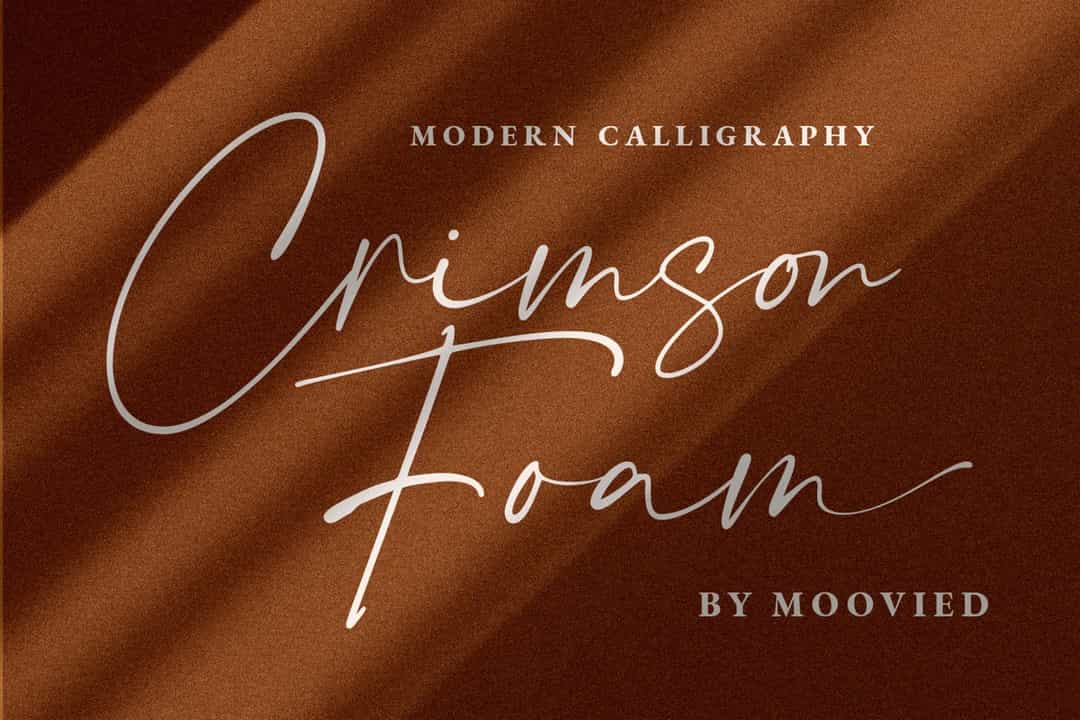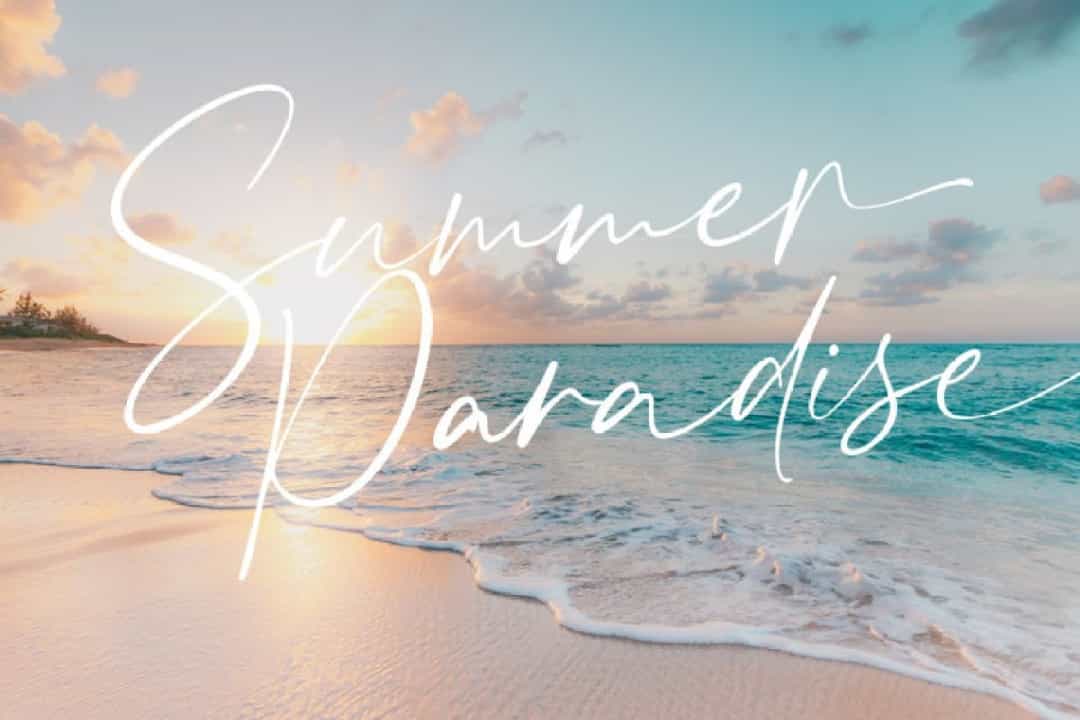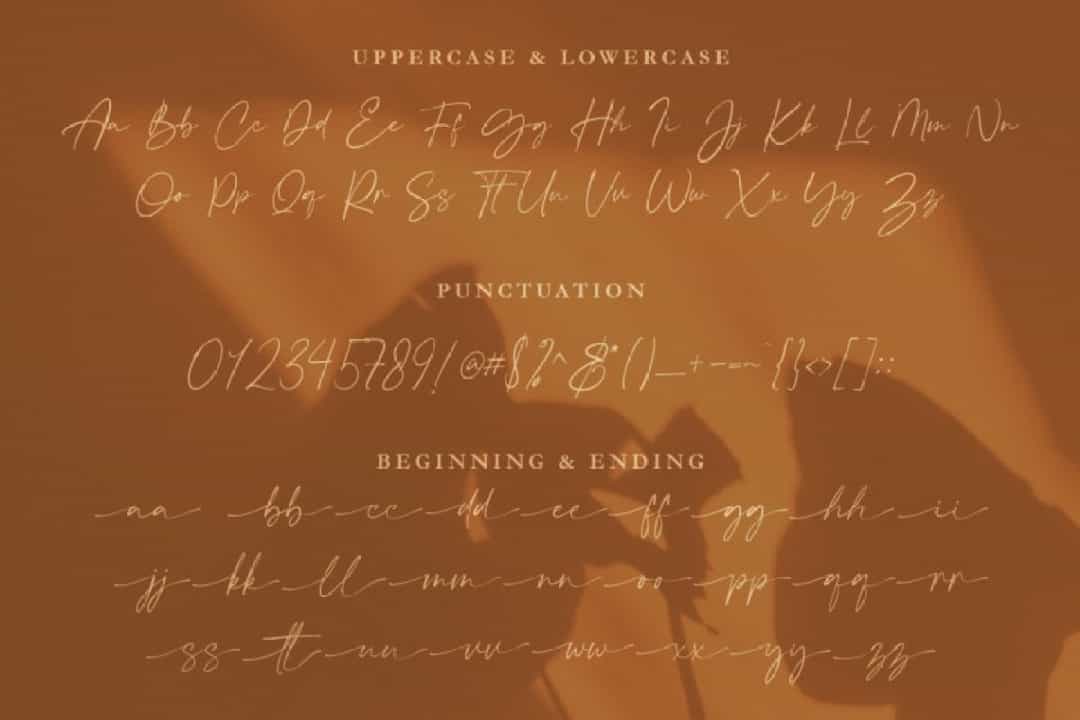
Crimson Foam is a lovely handwritten font and is very fluid and graceful to write with for signatures. It can be used with almost any design and has balanced characters – use it for your next project and see how Crimson Foam will breathe life into it!